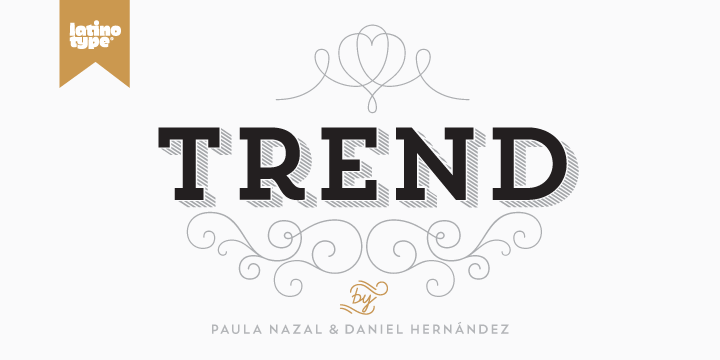
Trend Font is a highly fashionable and dynamic typeface, exceptionally well-suited for projects aiming to capture a contemporary and stylistic edge. Imagine it as the eye-catching headline for a cutting-edge fashion magazine, providing a sophisticated yet approachable vibe for a trendy lifestyle blog, or bringing a unique, layered aesthetic to modern packaging design. Its often layered, textured, or dimensional qualities make it an excellent choice for branding that seeks to be distinctive and memorable, striking visuals for event posters, editorial layouts, and impactful social media campaigns. It thrives in designs that demand a fresh, current, and visually rich presence, making a statement in both digital and print media.
What makes Trend Font truly exciting is its ability to push typographic boundaries and embody current design aesthetics. Unlike flat, single-layer fonts, Trend Font often incorporates multiple styles, textures, or inline elements within a single character, creating depth and visual interest. This allows designers to achieve complex typographic effects with relative ease, giving their projects a bespoke and artisanal feel. Its unique construction ensures that any message conveyed with Trend Font is not just read, but experienced visually. Designers appreciate its innovative structure and the immediate sense of modern sophistication it brings to their work. It's not just a font; it's a design statement that defines contemporary style.
The Trend Font family is typically quite comprehensive, reflecting its multifaceted design approach. You can often expect to find not just different weights, but also various layering styles, textures (like rough, inline, or shadow), and decorative elements that can be combined to create unique effects. This allows for incredible customization, letting designers build complex and visually rich typography. While the exact styles will depend on the specific Trend Font release, the emphasis is always on providing a versatile toolkit for creating impactful, layered, and fashionable type. This extensive flexibility ensures that Trend Font Free Download offers a powerful and visually stunning addition to your creative resources.